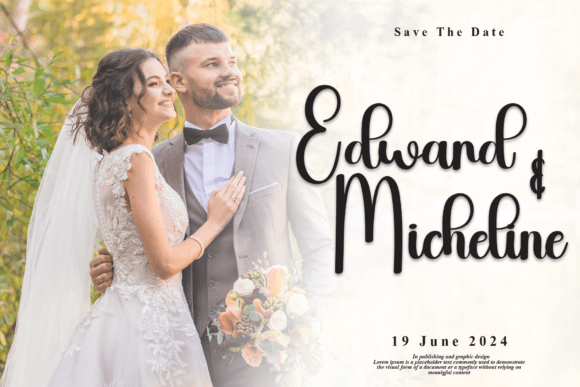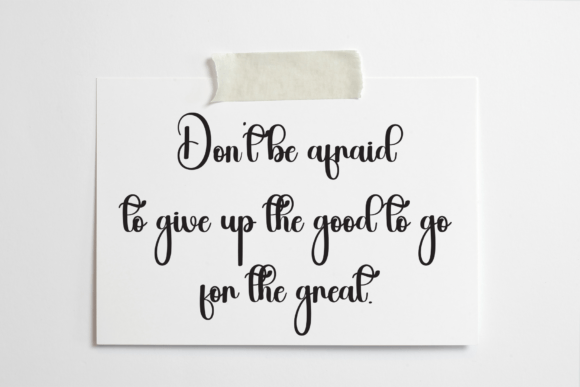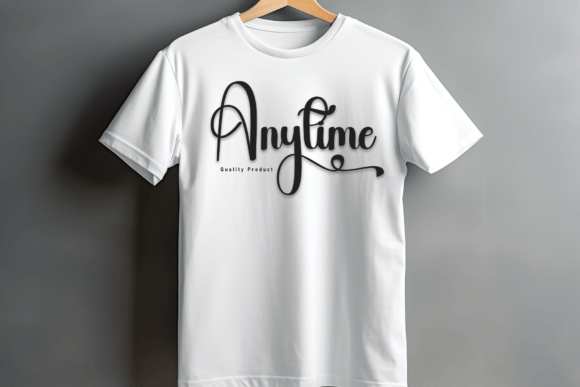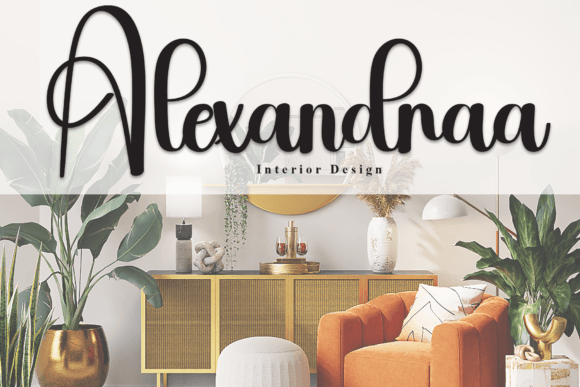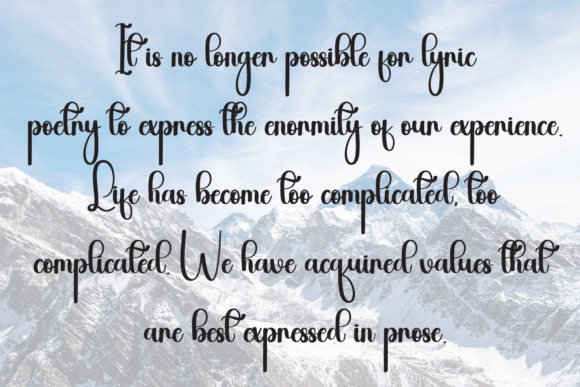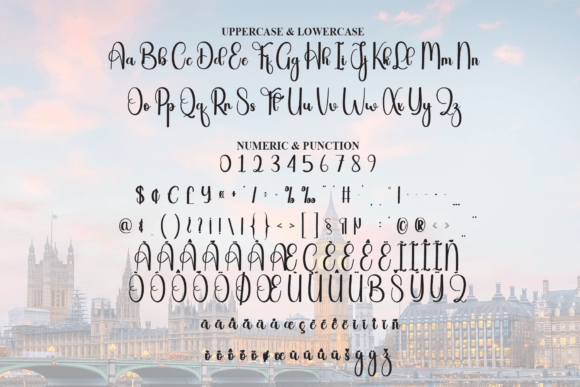
Introducing England Font: A Charming Handwritten Delight
Are you looking for a font that can add a touch of whimsy and playfulness to your designs? Look no further than England Font, a charming handwritten font that is sure to bring a smile to your face. With its sweet and friendly essence, this font is perfect for wedding invitations, heartfelt cards, and any other design project that requires a distinctive and fun touch.
The Characteristics of England Font
England Font is a beautifully crafted handwritten font that exudes a sense of warmth and friendliness. Its sweet and endearing quality makes it perfect for designs that require a personal touch. The font features flowing lines and curves that give it a whimsical and playful feel, making it ideal for a variety of design projects.
Perfect for Wedding Invitations and Heartfelt Cards
Wedding invitations and heartfelt cards are special occasions that require a font that can convey emotion and personality. England Font is the perfect choice for these types of designs, as it adds a touch of elegance and sophistication while still being playful and fun. Whether you’re designing a wedding invitation or a heartfelt card, England Font is sure to make your design stand out.
Injecting Whimsical Delight and Playful Vibes
England Font is designed to bring a sense of whimsy and playfulness to your designs. Its unique and distinctive style makes it perfect for designers and crafters who want to add a fun and creative touch to their work. With England Font, you can create designs that are not only beautiful but also engaging and memorable.
Crafting Decorative Designs with England Font
England Font is a versatile font that can be used to create a wide range of decorative designs. Whether you’re designing a wedding invitation, a heartfelt card, or a decorative poster, this font is sure to add a touch of elegance and sophistication. With its flowing lines and curves, England Font is perfect for creating beautiful and intricate designs that are sure to impress.
Refreshingly Endearing and Fun
England Font is a refreshingly endearing font that is sure to bring a smile to your face. Its sweet and friendly essence makes it perfect for designers and crafters who want to create designs that are not only beautiful but also fun and engaging. With England Font, you can add a touch of personality and whimsy to your designs, making them truly unique and memorable.
Why Designers and Crafters Love England Font
Designers and crafters love England Font for its unique and distinctive style. This font is perfect for anyone who wants to add a touch of whimsy and playfulness to their designs. With its sweet and friendly essence, England Font is sure to make your designs stand out and leave a lasting impression.
Tips for Using England Font
Here are some tips for using England Font in your designs:
- Use England Font for wedding invitations and heartfelt cards to add a touch of elegance and sophistication.
- Use England Font to create decorative posters and signs that are sure to grab attention.
- Combine England Font with other fonts to create a unique and distinctive style.
England Font is a charming handwritten font that is sure to bring a touch of whimsy and playfulness to your designs. With its sweet and friendly essence, this font is perfect for wedding invitations, heartfelt cards, and any other design project that requires a distinctive and fun touch. Whether you’re a designer or crafter, England Font is sure to become a favorite in your collection.